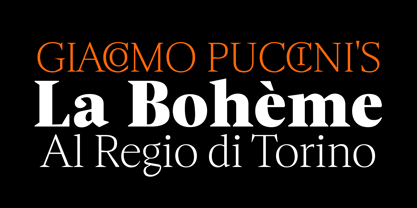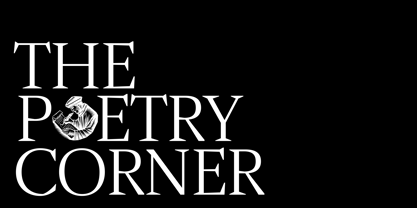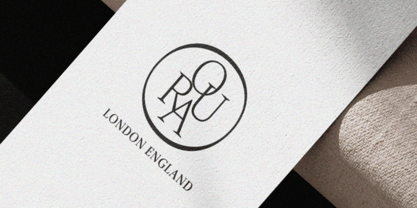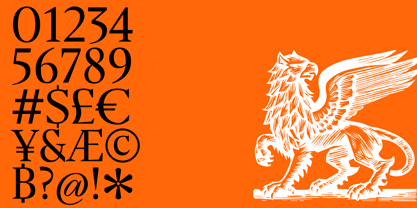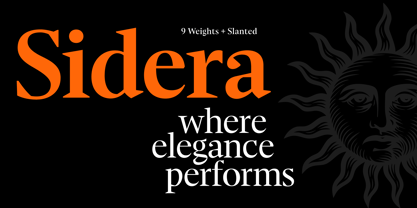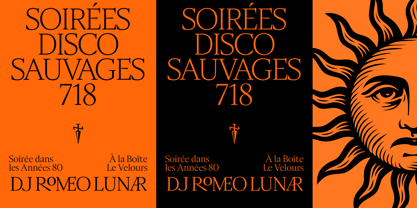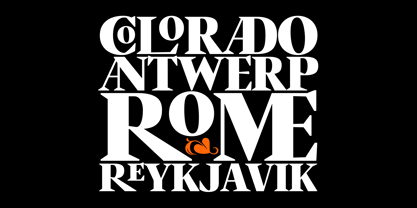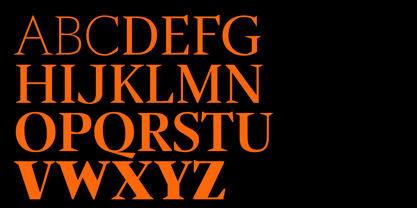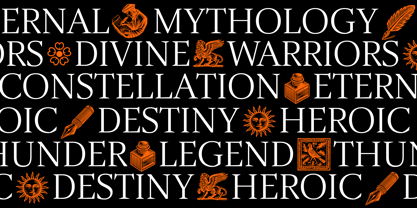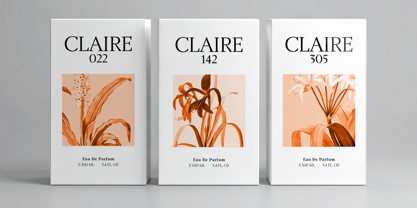
Sidera
by Resistenza
The Sidera Font Family was designed by Giuseppe Salerno, Paco González and published by Resistenza. Sidera contains 18 styles and family package options.
Sidera is a refined, high-contrast serif typeface with a strong editorial voice, crafted across nine expressive weights—from a delicate Thin to a commanding Black. Drawing inspiration from transitional serifs and calligraphic forms, it balances elegance with impact through sharp wedge serifs, flared terminals, and dynamic contrast. The family’s lightest weights bring grace and clarity, while the heavier styles deliver bold presence, ideal for headlines, branding, and storytelling. Sidera is well-suited for projects that require sophistication and expression—whether in magazines, cultural publications, luxury packaging, or typographic identities. With oldstyle figures and ornamental flourishes, it bridges classical beauty with contemporary design needs, making it a versatile tool for designers who value both style and substance.